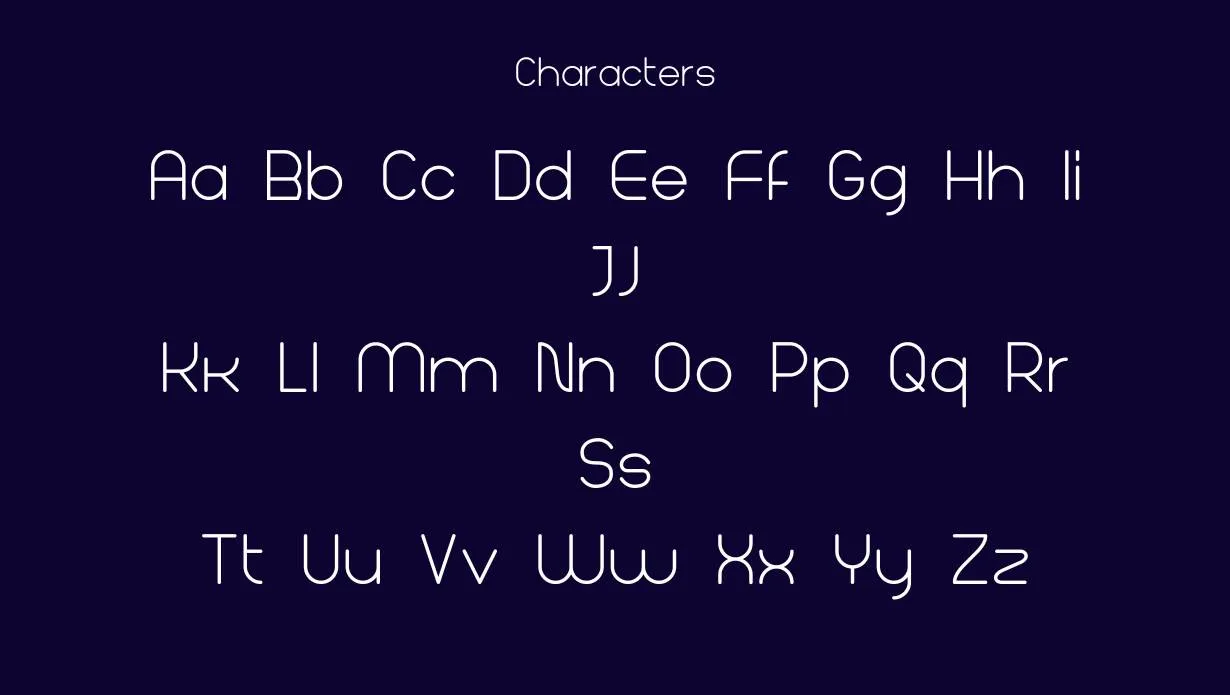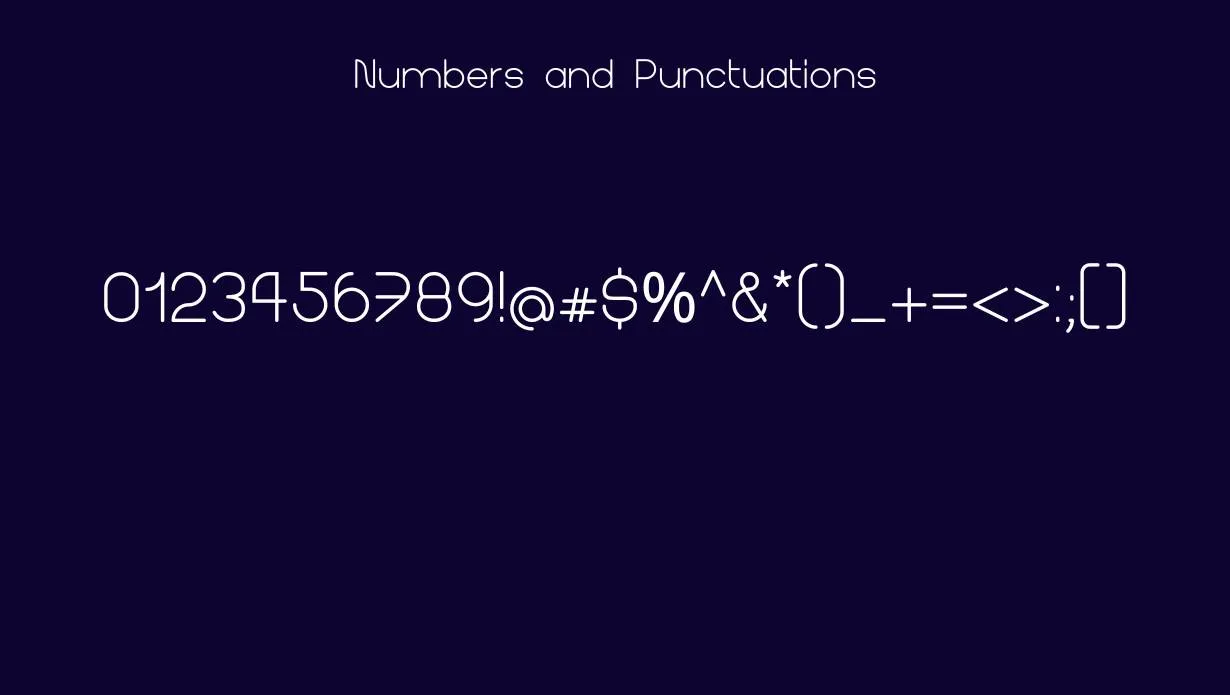
Whola font lies under the Sans-Serif font family. You can combine this outstanding typeface with hot sauce font to give a boost to your project. It is offered in Open-type and True-type formats. You can apply this typeface for body text, blog posts, CSS, and content writing purposes.
This Sans-Serif typeface has highly readable characters that are suitable for print and digital projects.
View of Whola Font